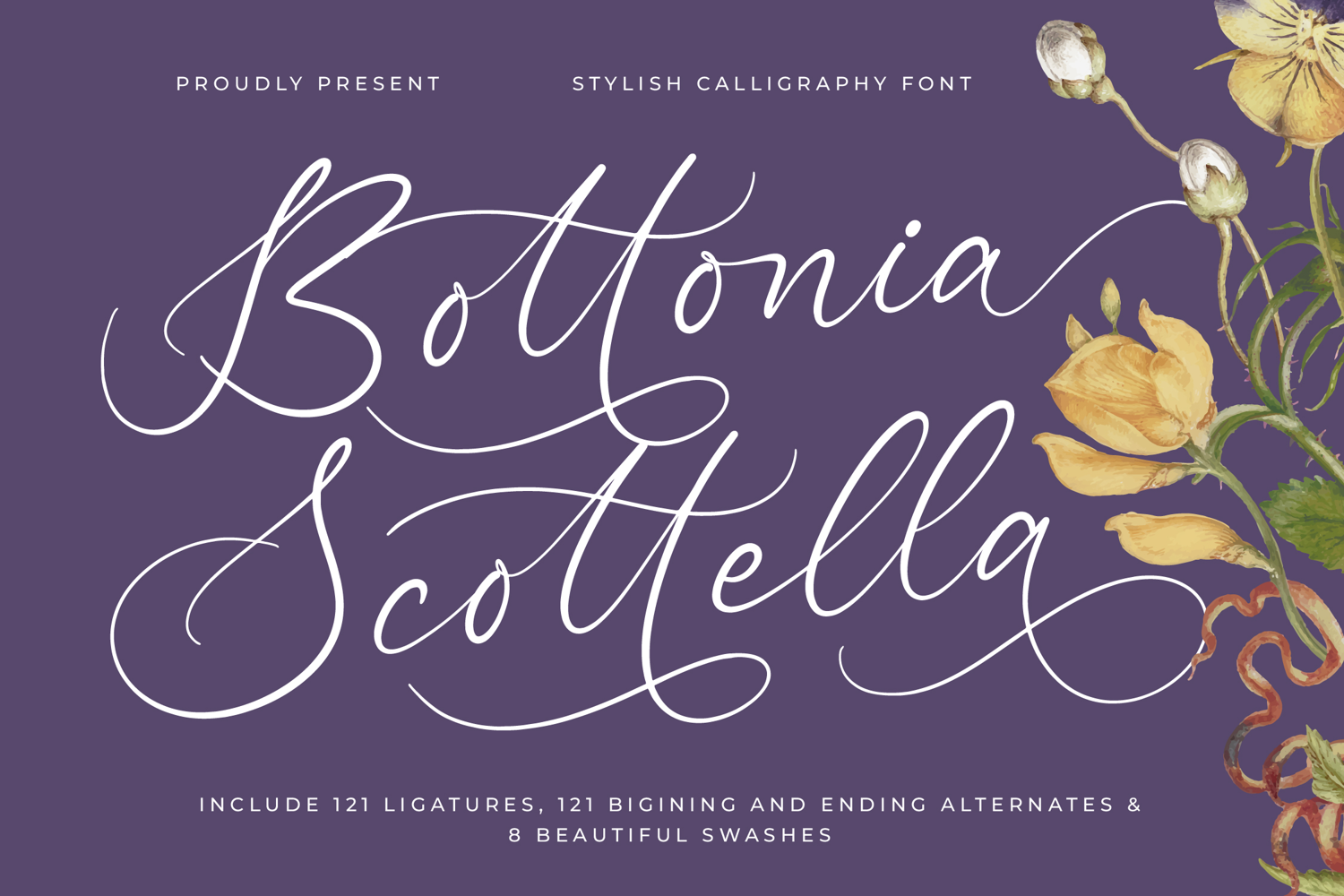
Bottonia Scottella - Stylish Calligraphy Font
Bottonia Scottella is a stylish calligraphy font that combines timeless elegance with modern artistic flair. Its sweeping curves, graceful ligatures, and refined alternates make it an ideal choice for projects that require both sophistication and creativity. With 121 ligatures, 121 beginning and ending alternates, and 8 beautiful swashes, this font offers endless possibilities for crafting custom lettering with luxury appeal.
This typeface is especially strong in branding. Perfect for logos, boutique labels, fashion brands, beauty products, and luxury packaging, Bottonia Scottella conveys refinement and exclusivity. Its calligraphic detail ensures that branding projects feel authentic, stylish, and memorable, making it a signature choice for premium markets.
In editorial and publishing, Bottonia Scottella adds a refined and romantic touch. Magazines, book covers, lifestyle articles, and creative invitations benefit from its expressive rhythm. It produces editorial layouts that balance beauty and legibility, turning text into a visually engaging statement.
For web typography, this elegant calligraphy integrates seamlessly across blogs, websites, online shops, and social media platforms. Its handwritten charm guarantees that digital media projects communicate artistry, sophistication, and authenticity, helping brands and creators stand out online.
The font also thrives in advertising and marketing. From posters, product campaigns, and billboards to packaging and business cards, Bottonia Scottella ensures that advertising stays visually captivating while maintaining a refined character. It works especially well for advertising that seeks to blend impact with elegance.